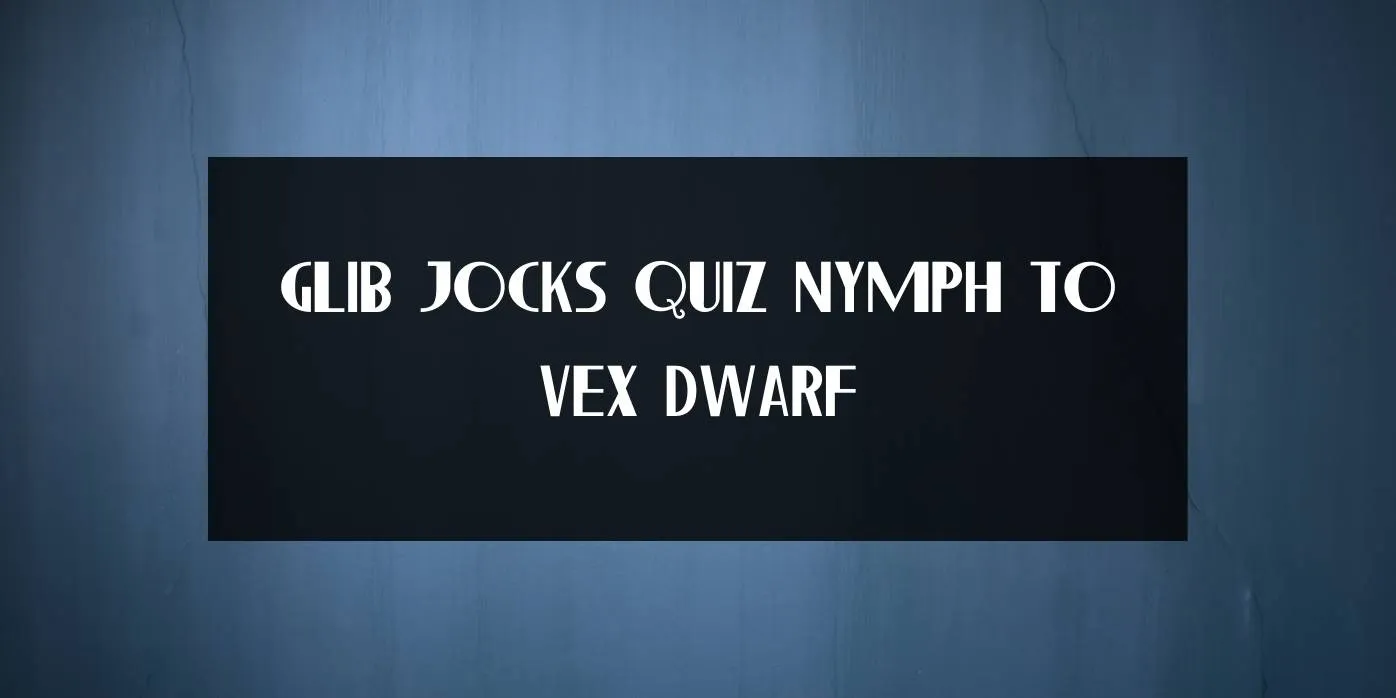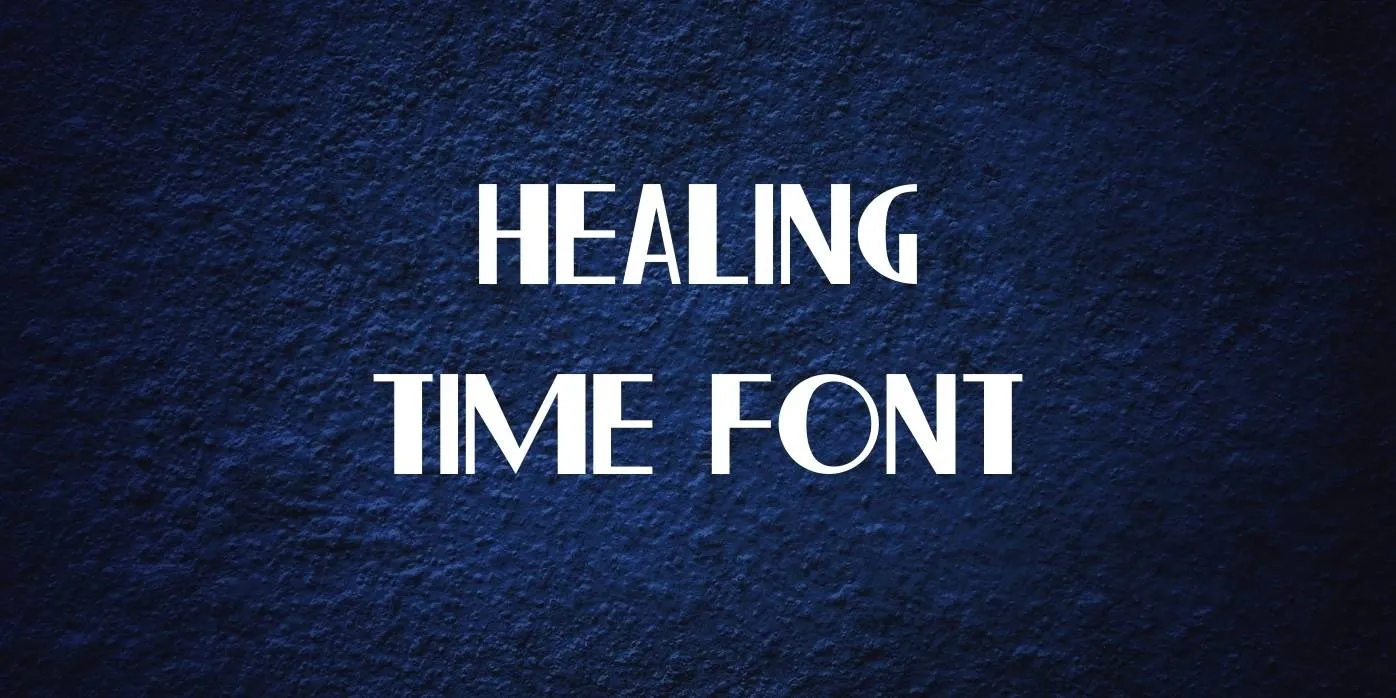
Healing Time Font
Today we introduce a classic typeface named Healing Time Font. It belongs to the display family. The French designer took the charge of designing it for the first time. And releases it via Fontfabric on 12th February 2013.
It is best for use in Adobe. This font has available in two unique styles including Regular, and Bold Italic. Which all contain True type features with more than 128 characters. Also, have international support in almost all languages such as Cyrillic and Latin.
It is well specified for the CSS. You can also use its similar lakers font that has sane features. It’s a perfect choice for making any design look more professional and eye-catching. For example, you can create beautiful posters, flyers, book covers, product packaging as well as web layouts.